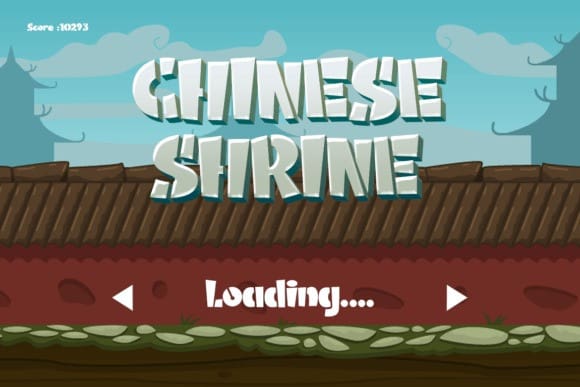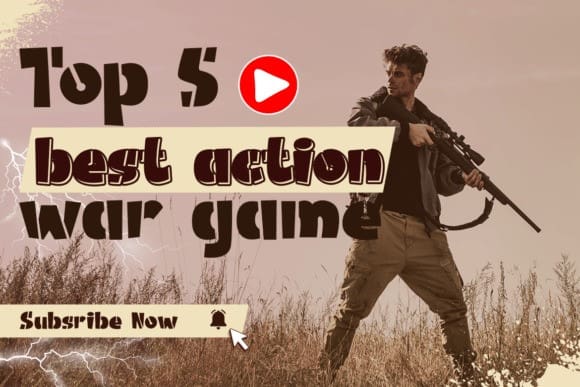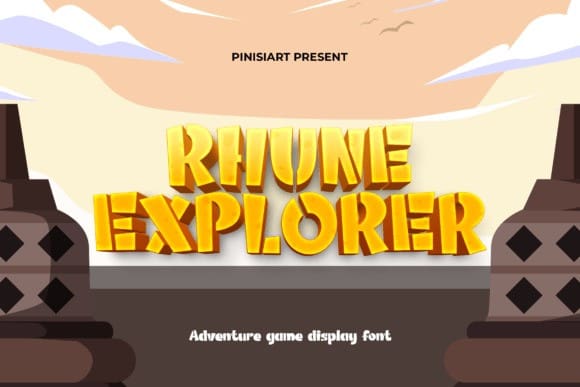
Rhune Explorer Font
Rhune Explorer Font, makes your typography design more futuristic. Emerge your design, whether you’re looking for a font to design a gaming project, music flyers, movie posters, or other graphics you’ll find plenty of choices on this list.